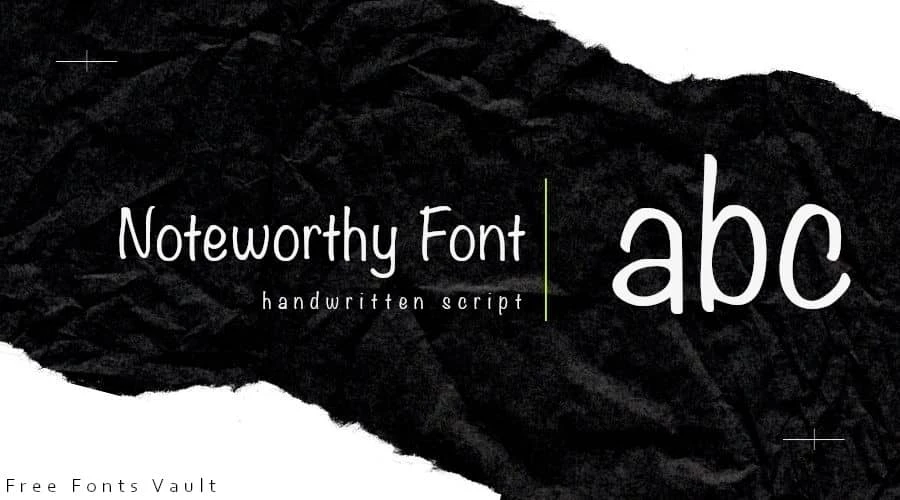
Noteworthy is a handwritten script typeface font. With great appealing glimpses along with its handwritten layout, Noteworthy font is very attractive and eye-catching. This elegant handwritten script typeface has 2 styles available bold and light. Another great aspect of the noteworthy font is that it is free for personal as well as commercial uses.
Noteworthy is a font that you can use everywhere. From regular typing to design creation, this font is suitable to use in any perspective. Designers love to use this font more than others. A number of designers refer to and prefer this font for the purpose not only for their comfort but also for the stunning look. Besides designing you can use this font in the section which is given below.
- Designing: For huge designing purposes, Such as Business cards, Headlines, Brochures layouts, Noteworthy is at the top of everyone’s favorite list.
- Logos: You can design your logos with it.
- Websites: I have seen various websites use this font.
- Magazines: The font has the outlook to place on top of magazines.
The noteworthy Font family is beneficial for both, Printing and web display purposes. So, using this in developing a web template or in a game will also be a good approach.